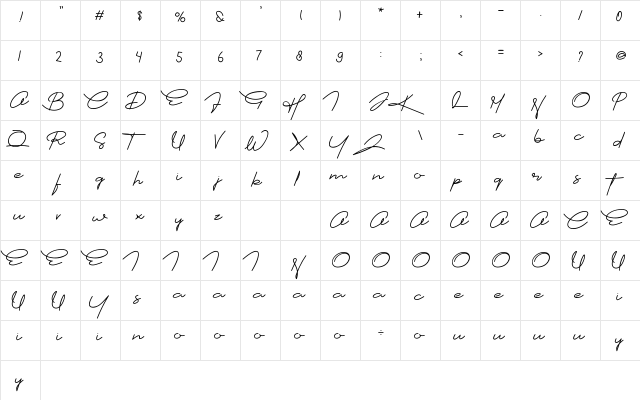
Cartier Regular
Design Context for Cartier Typeface
Cartier is a composed and adaptable typeface that performs quietly and consistently across a wide range of design contexts.